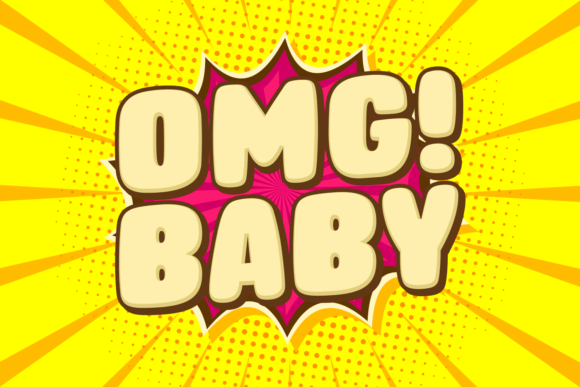
Welcome to the realm of Omg Baby Font, a captivating display font that will inject an irresistible charm into your digital creations, transporting you to a world of whimsical delight. This enchanting font is meticulously designed by the renowned Creative Fabrica Fonts, known for their exceptional eye for detail and unwavering commitment to typographic brilliance.
Omg Baby Font is not just another font; it's a portal to a realm where imagination and aesthetics harmoniously coexist. Its meticulously crafted characters exude an infectious personality, inviting you to explore new horizons of creativity. Whether you're a seasoned designer seeking to elevate your projects or a budding enthusiast eager to make an unforgettable impact, Omg Baby Font is your perfect companion.
Imagine the awe-inspiring book covers you'll create, adorned with Omg Baby Font's playful curves and captivating personality. Dive into the world of children's fashion, where t-shirts emblazoned with Omg Baby Font's cheerful characters will spark joy in young hearts. Craft headlines that demand attention, ensuring your messages resonate with an audience captivated by the font's irresistible charm.
Unleash your creativity and design eye-catching stickers that bring a smile to everyone's face. Create flyers and posters that burst with vibrancy, leaving an indelible mark on all who encounter them. Transform your advertising materials into works of art, captivating your audience with the font's playful elegance. Omg Baby Font is the key to unlocking a treasure chest of enchanting possibilities.
From charming book covers to vibrant kids' t-shirts, from attention-grabbing headlines to delightful stickers, from captivating flyers to mesmerizing posters, and from captivating advertising materials to a plethora of other creative endeavors, Omg Baby Font is your gateway to a world of typographic wonder. Its versatility knows no bounds, inviting you to explore the vast expanse of your imagination and leave an unforgettable mark on the digital landscape.
Once you experience the magic of Omg Baby Font, you'll never look at typography the same way again. Its playful personality and undeniable charm will infuse your projects with an irresistible allure, leaving you and your audience spellbound. Embrace the power of Omg Baby Font today and unlock the gateway to a world where creativity flourishes and brilliance reigns supreme.